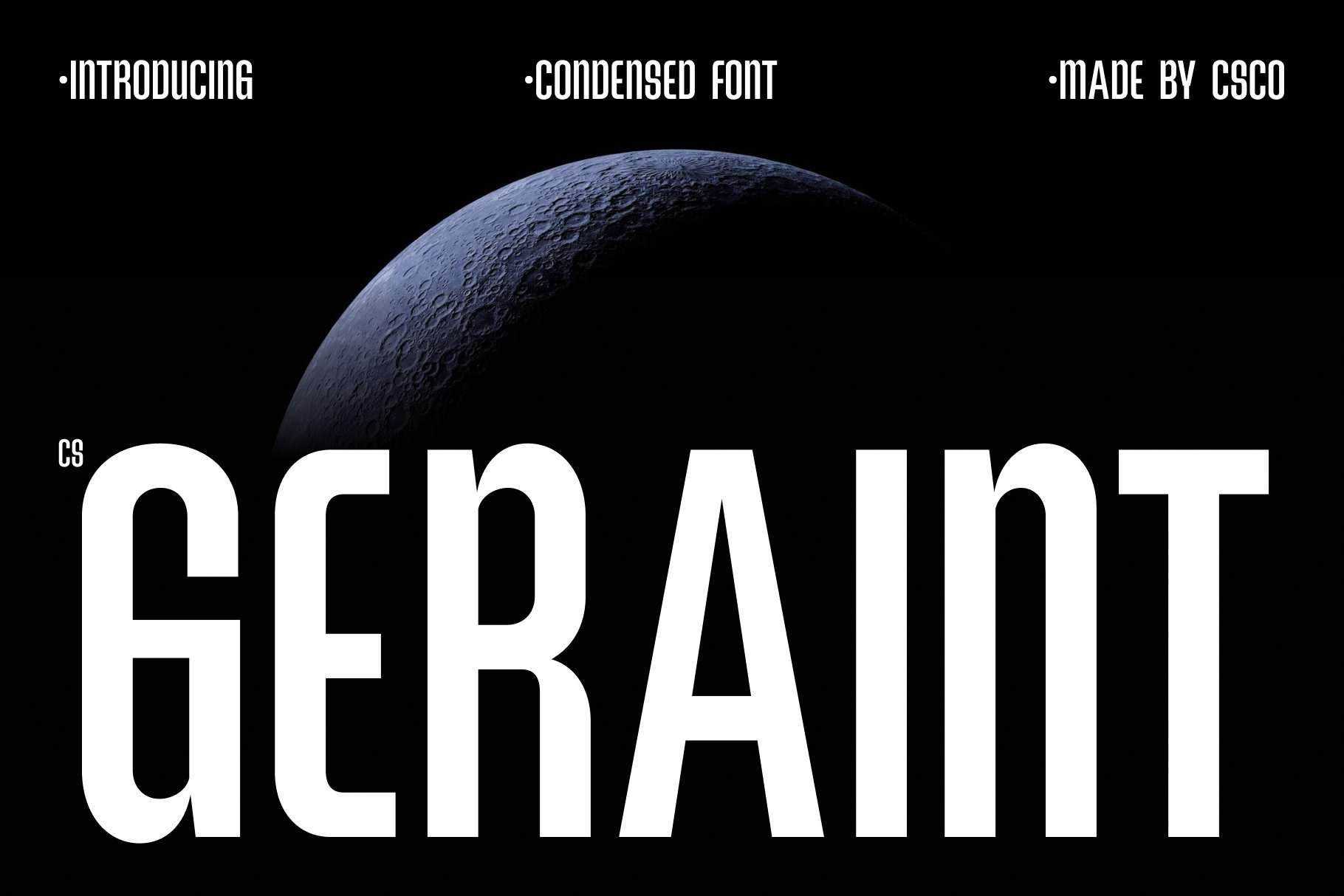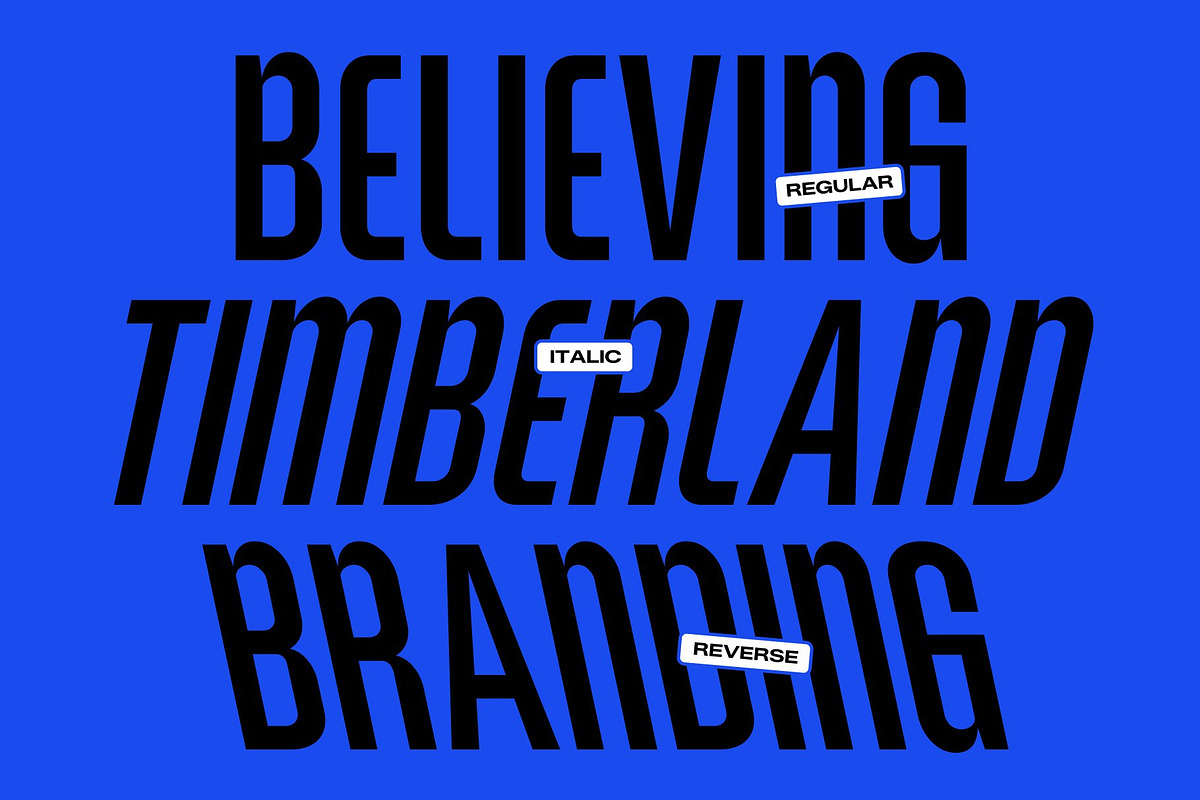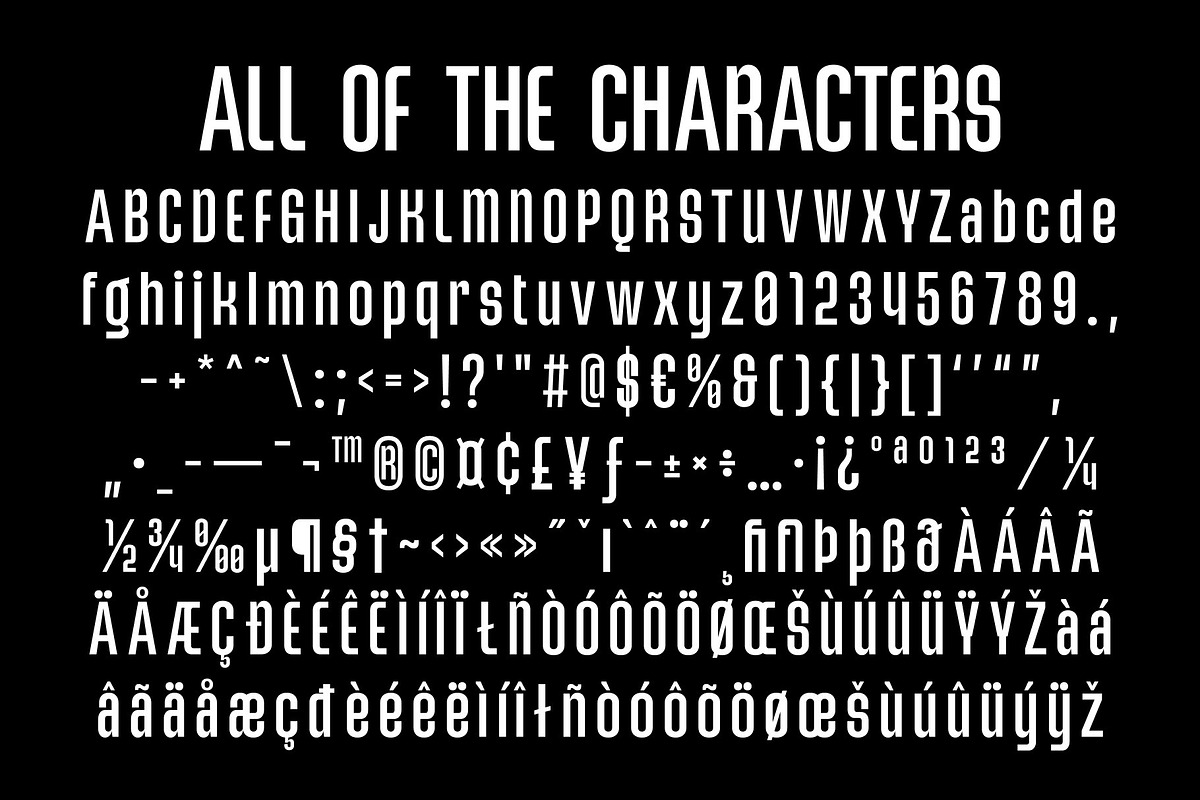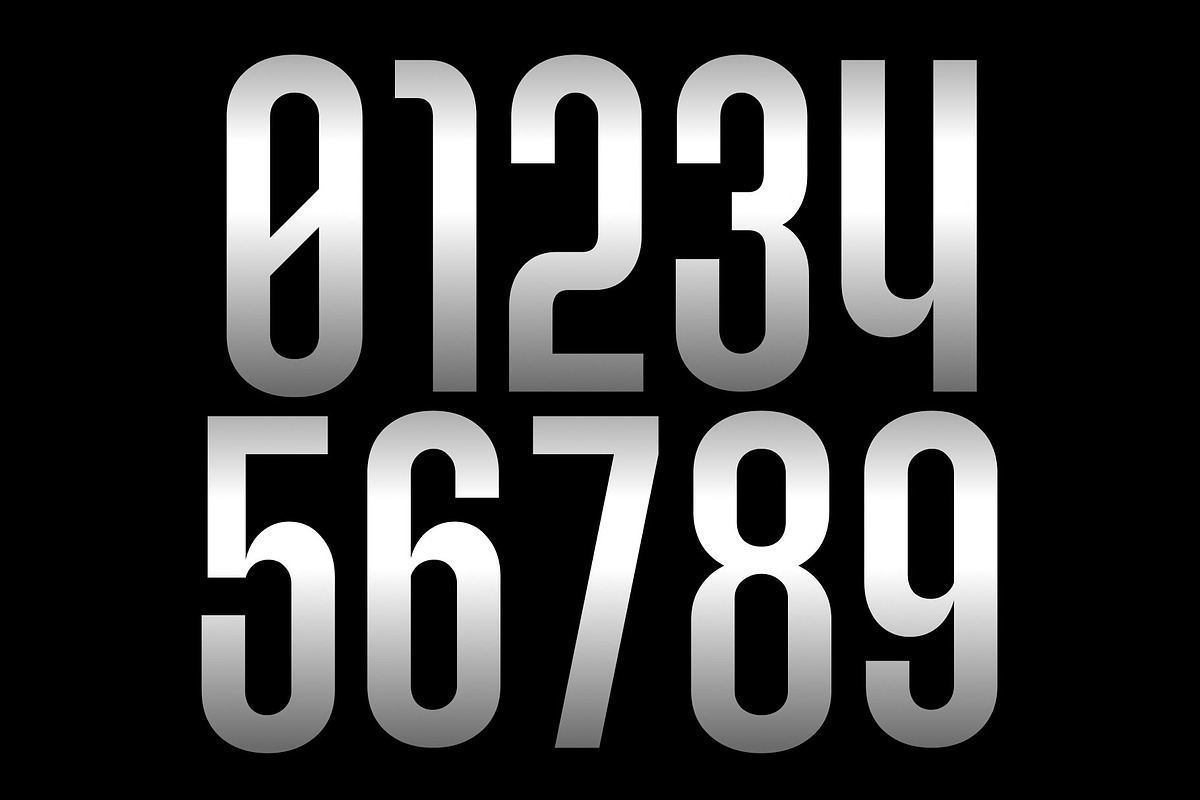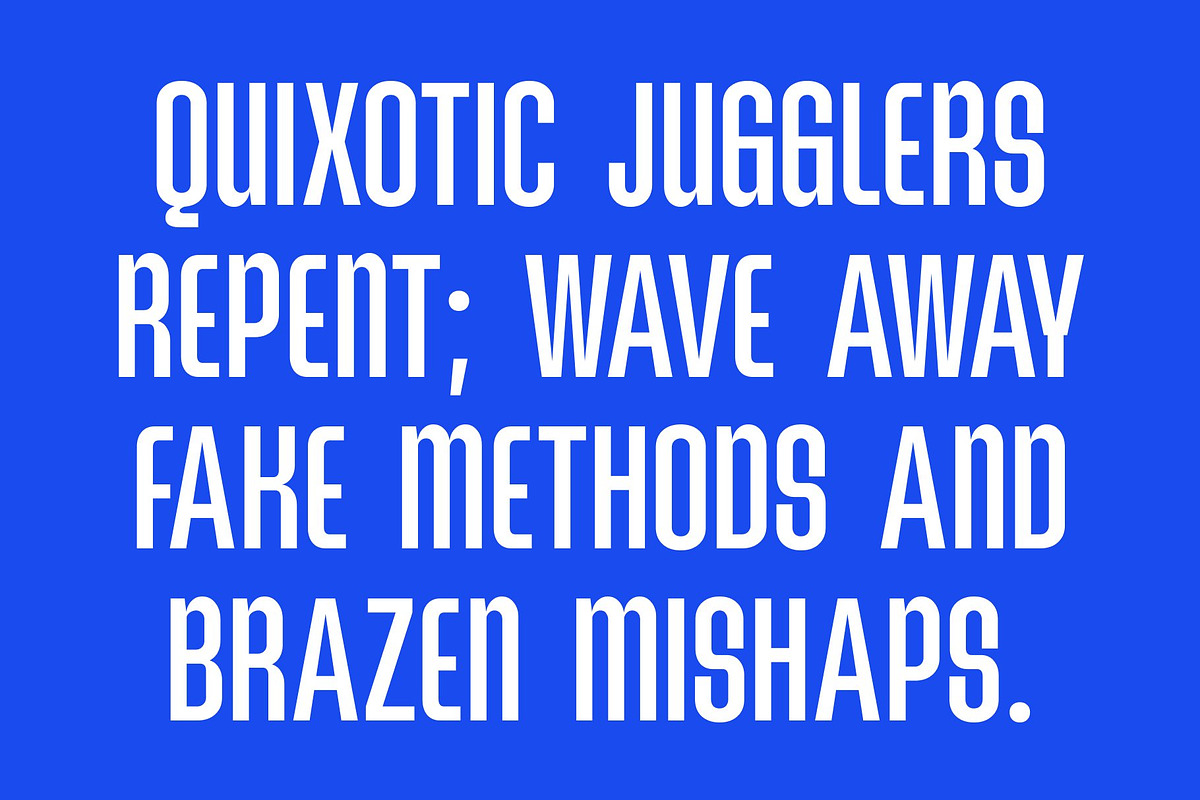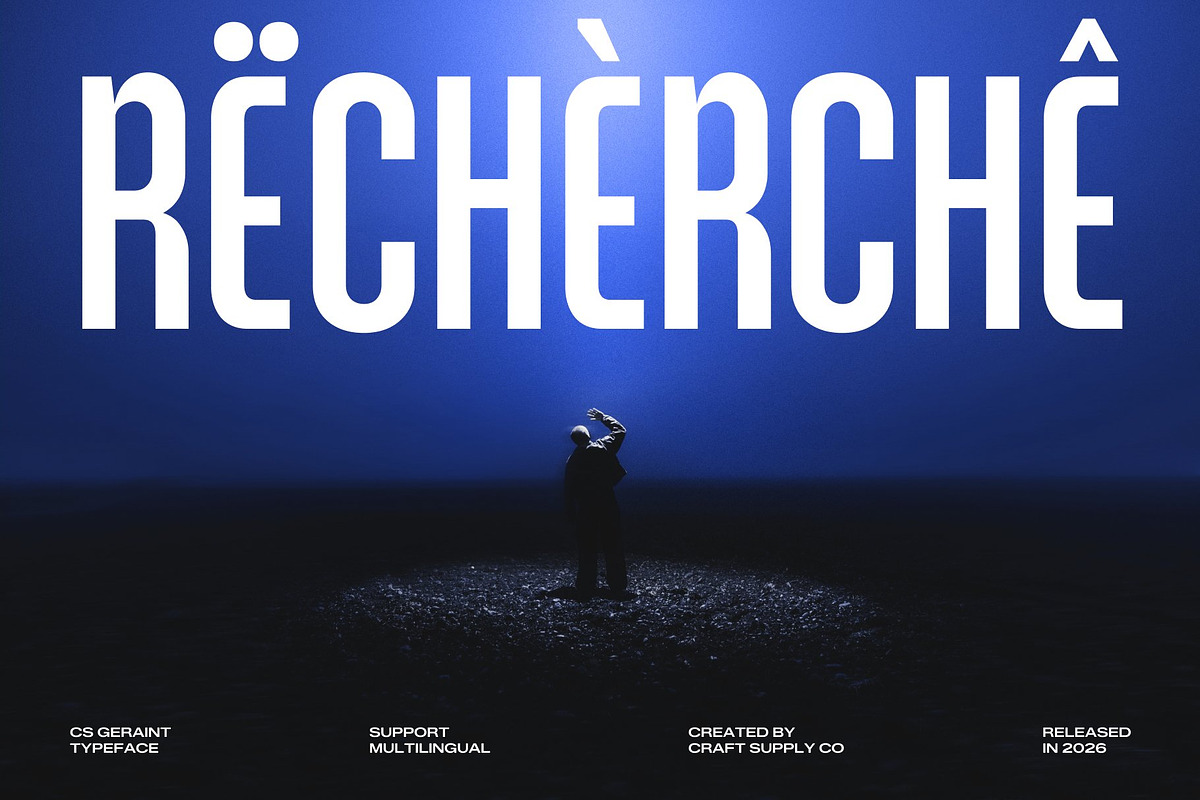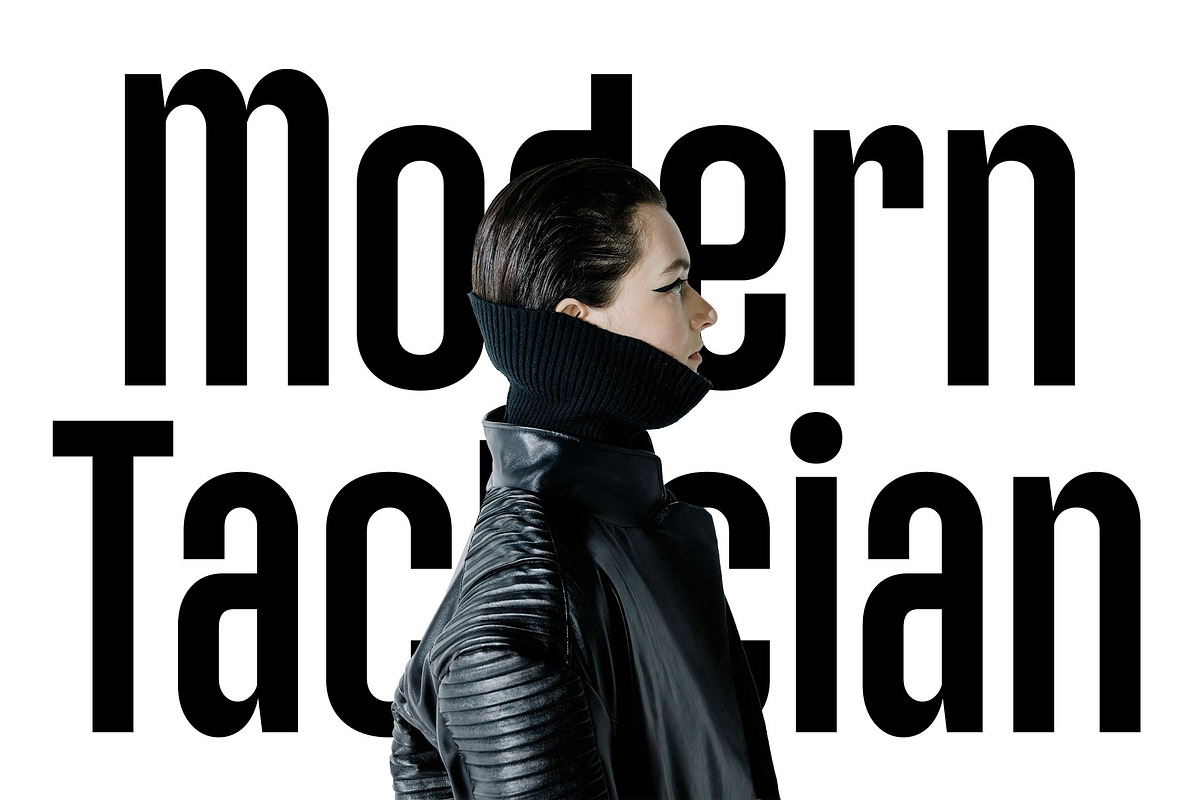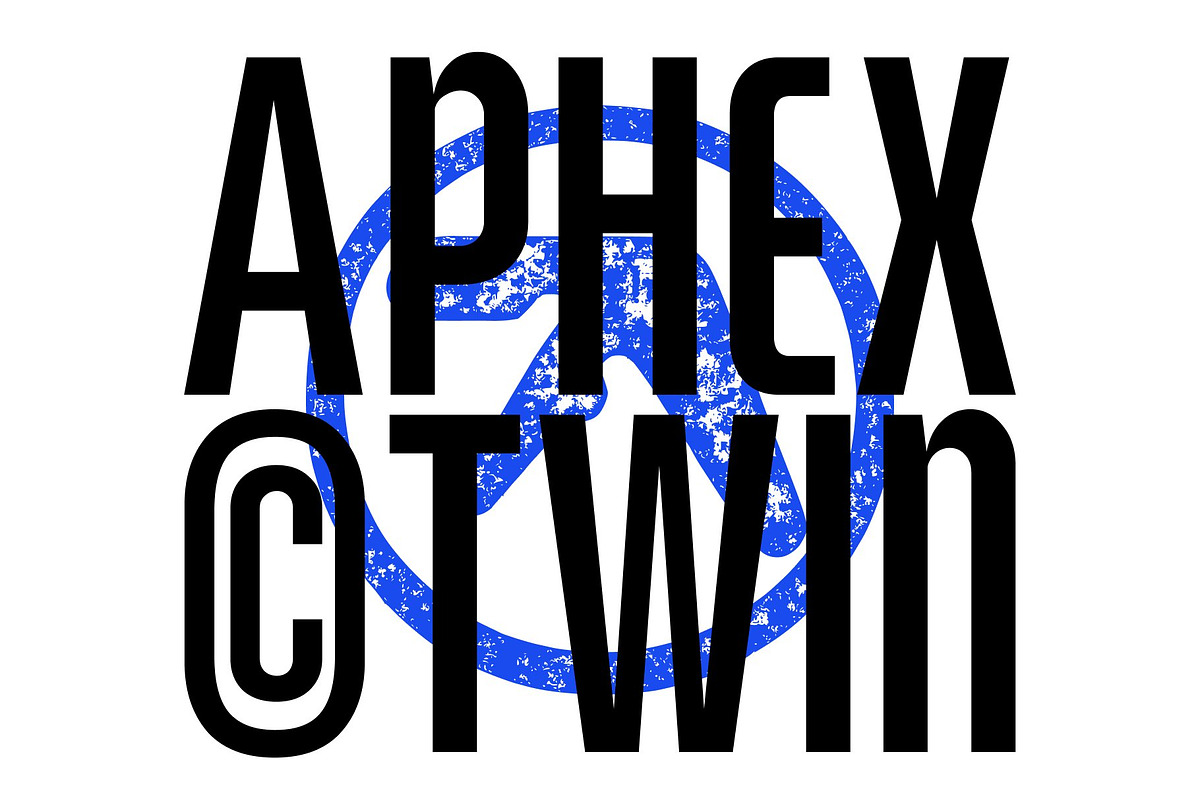
CS Geraint – Condensed Font
CS Geraint – Modern Condensed Display Font with Playful Energy
Modern Condensed Display Font with Bold Personality This is a modern condensed display font that blends bold impact with a playful contemporary character. Designed to stand out in tight spaces, this typeface brings lively energy to headlines while maintaining strong readability. It is the perfect choice for designers who want typography that feels expressive, confident, and visually engaging.
Optimized for Tight Layouts and Compact Headlines The condensed proportions allow more text to fit into narrow compositions without losing clarity or balance. Each character is carefully shaped to appear tall, compact, and legible, making the font ideal for posters, branding, and large titles. This efficient structure ensures your message remains strong even in space-limited layouts.
Playful Details with Modern Appeal This font introduces subtle playful touches that add personality to its clean geometric forms. These details give the typeface a lively rhythm while keeping the overall look modern and professional. The result is a font that feels fresh, energetic, and approachable without sacrificing visual strength.
Perfect for Headlines, Posters, and Branding Whether used for bold posters, dynamic branding, or eye-catching headlines, this font adapts effortlessly to modern design needs. Its combination of compact efficiency, playful character, and strong readability ensures your typography feels memorable, stylish, and full of contemporary energy.
CS Geraint Regular
CS Geraint Italic
CS Geraint Reverse Italic